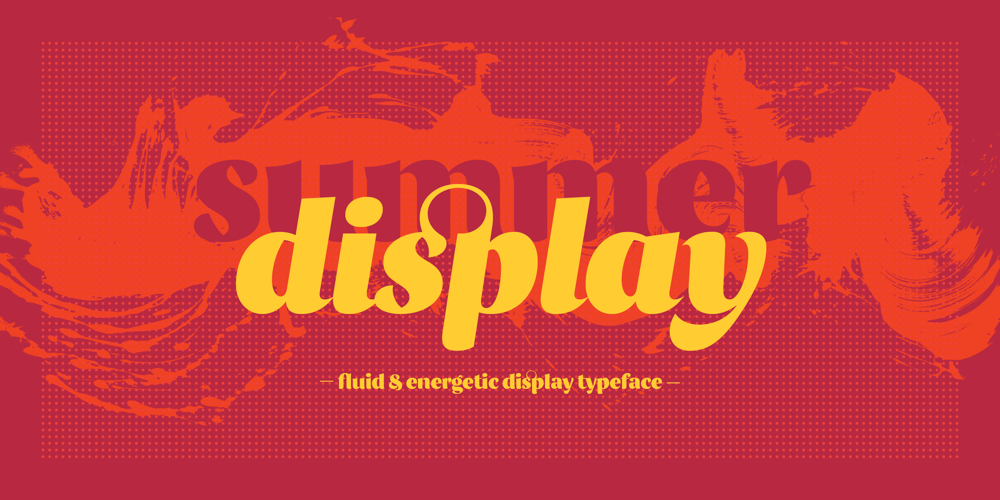
Summer Display Font Family was designed by Anand Naorem and published by Missin Glyphs. Summer Display contains 2 styles and family package options. Inspired by the stroke movements of brush lettering ‘Summer Display’ is an energetic family featuring high-contrast and well-proportioned letter shapes suitable for large displays and headlines.